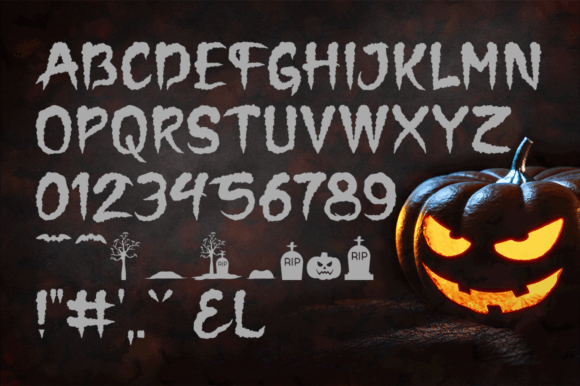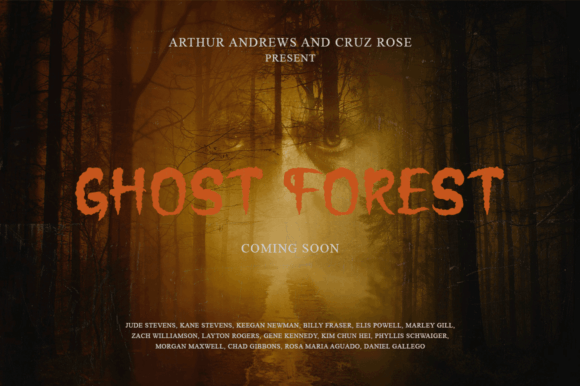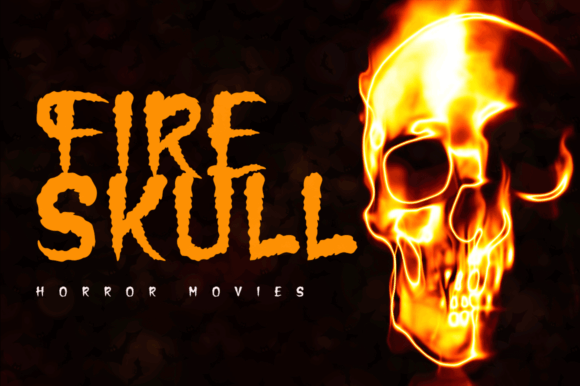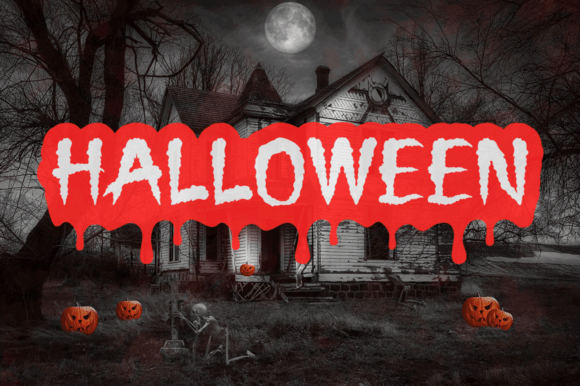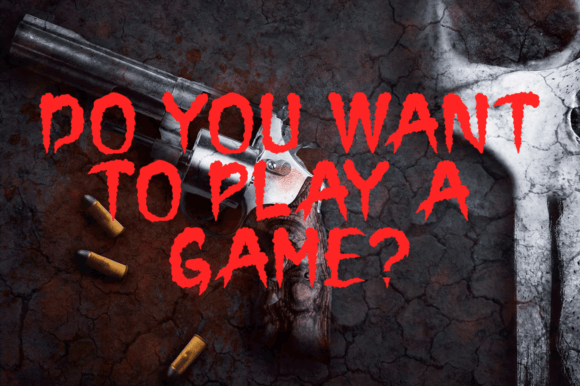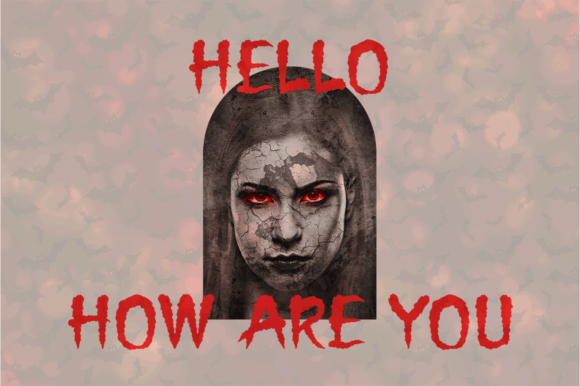
The Perfect Font for a Spine-Tingling Halloween
As a designer, you’ve likely found yourself staring at a blank screen, trying to conjure up the perfect font to match the eerie atmosphere of your latest horror-themed project. The sound of creaking doors, the flickering candles, and the whispers of the unknown all blend together to create an unsettling ambiance that’s hard to replicate. And that’s where the Halloween Day Font comes in – a bold, sharp, and angular font that’s designed to draw the eye and create a captivating atmosphere.
This versatile font is perfect for designers looking to add a touch of darkness and mystery to their work. With its PUA encoded design, you’ll have effortless access to all glyphs and swashes, allowing you to get creative with your typography. Whether you’re working on a horror movie poster, a spooky video game, or a haunted house invitation, the Halloween Day Font is sure to make your design stand out.
Halloween Day Font Key Features
- Font Style: A unique, spooky, and festive font designed for Halloween-themed projects.
- Unique Characteristics: Features intricate details, such as ghostly outlines and eerie textures, to create a haunting atmosphere.
Halloween Day Font Review
Overall, I think the Halloween Day Font has some unique and creative elements that can be really effective in certain designs. ✨ The bold and playful style of the font is perfect for Halloween-themed projects, and the various swashes and flourishes add a touch of whimsy. ✨ The font also comes with a range of different glyphs, including international characters, which is a big plus.
However, there are some limitations to the font that should be considered. ⚠️ The font is quite ornate, which can make it difficult to read at larger font sizes. ⚠️ Additionally, the font’s design is very specific to Halloween, which may limit its use in other types of projects. ⚠️ Finally, the font’s compatibility with certain operating systems and software may be a concern for some users.
Design Considerations
- Best used for small to medium-sized font sizes
- Perfect for Halloween-themed projects, party invitations, and more
- May be difficult to read at larger font sizes
- Limited use in other types of projects due to its specific design
The Halloween Day font is perfect for creating spooky and festive designs, such as:
- Invitations and party decorations
- Spooky posters and flyers
- Halloween-themed social media graphics
For best results, use the font in bold or italic styles to add emphasis and create a spooky atmosphere.